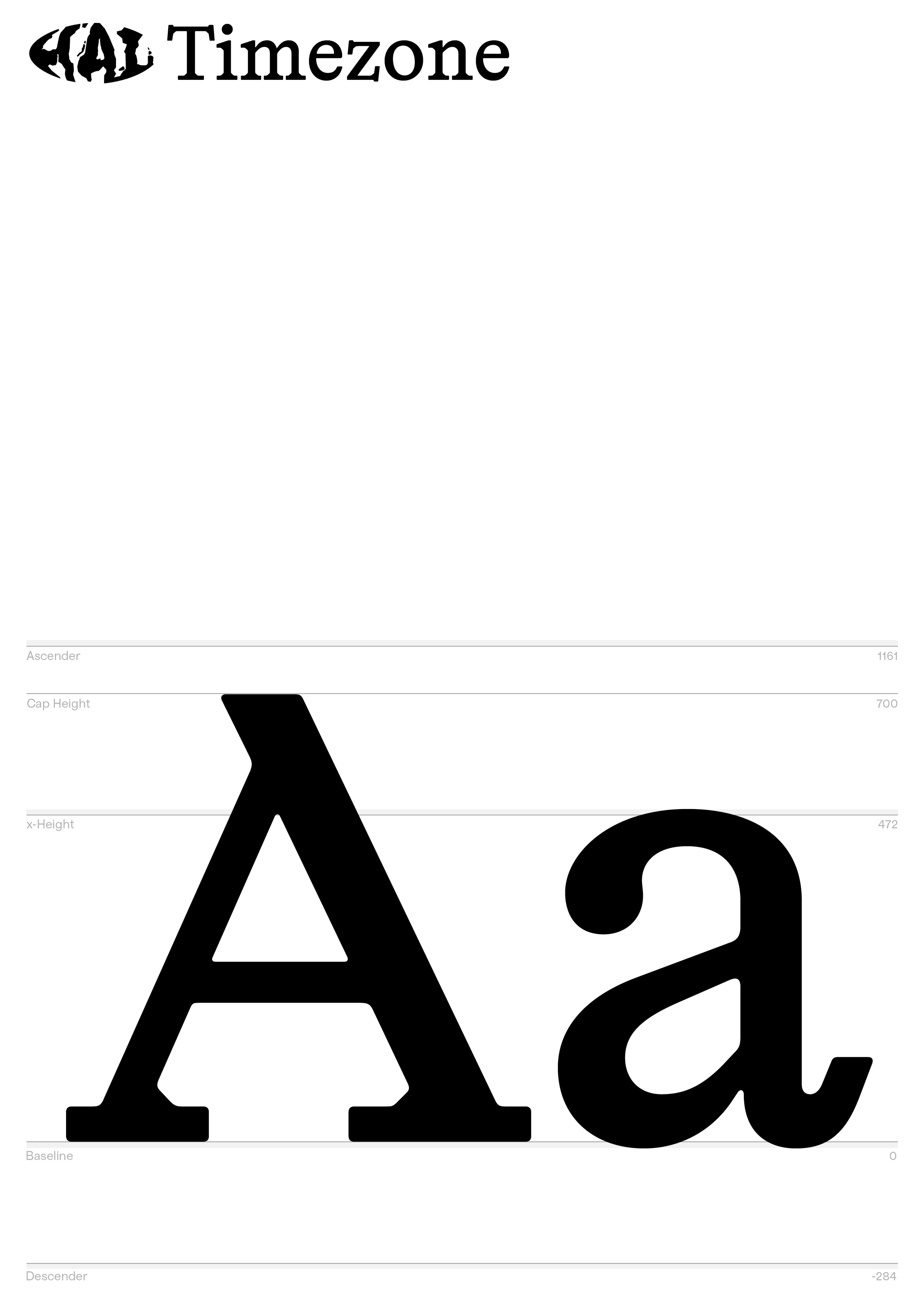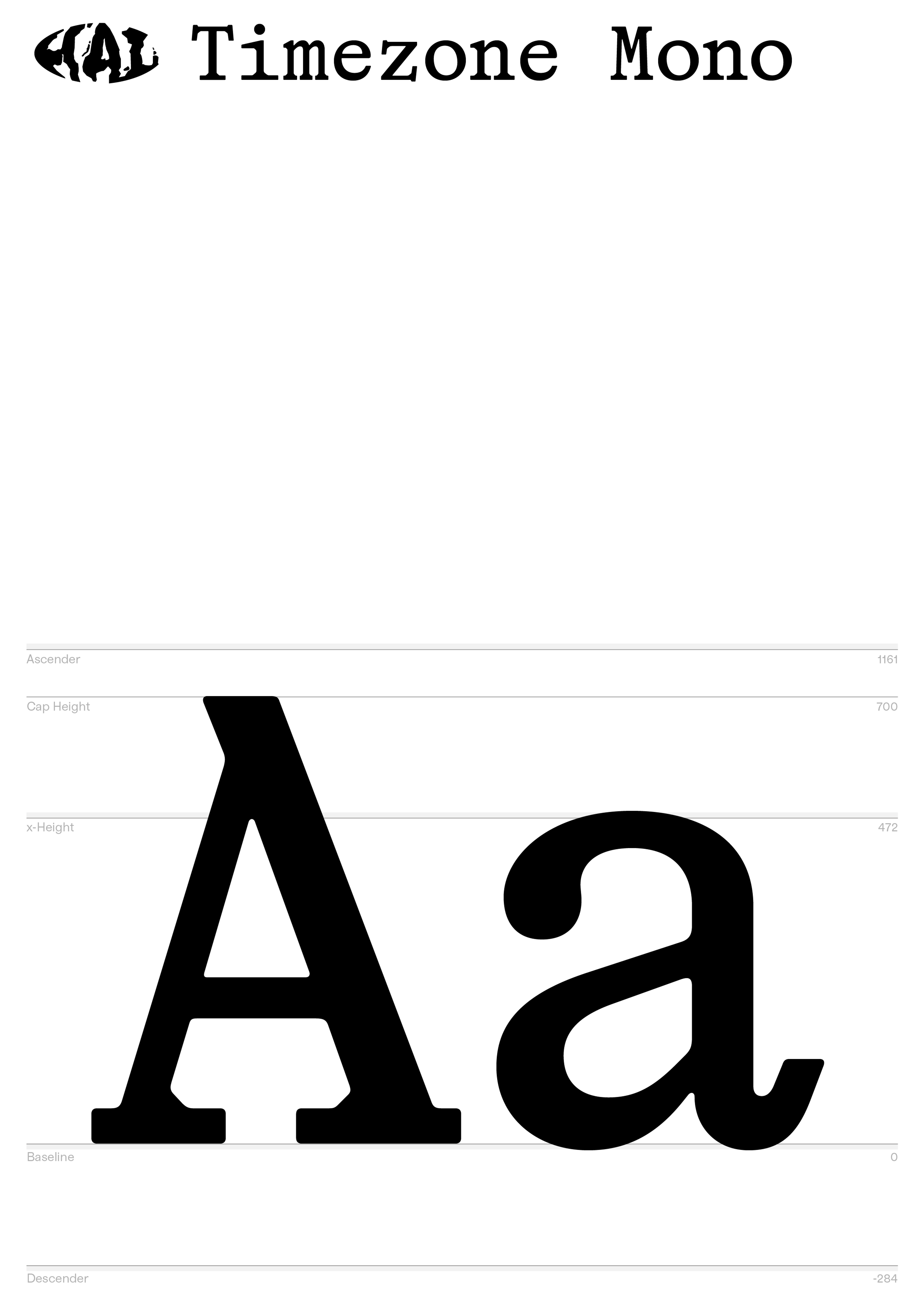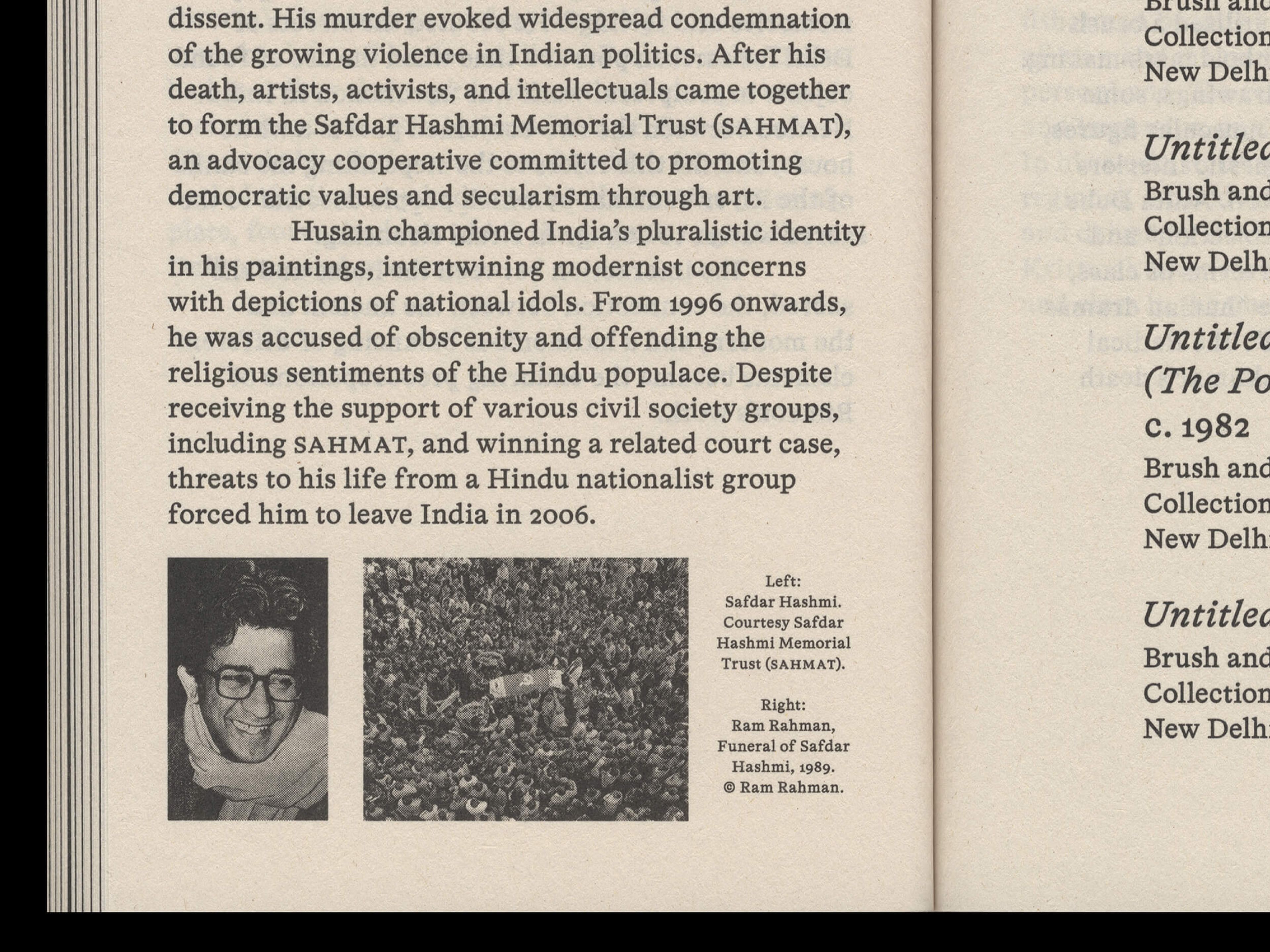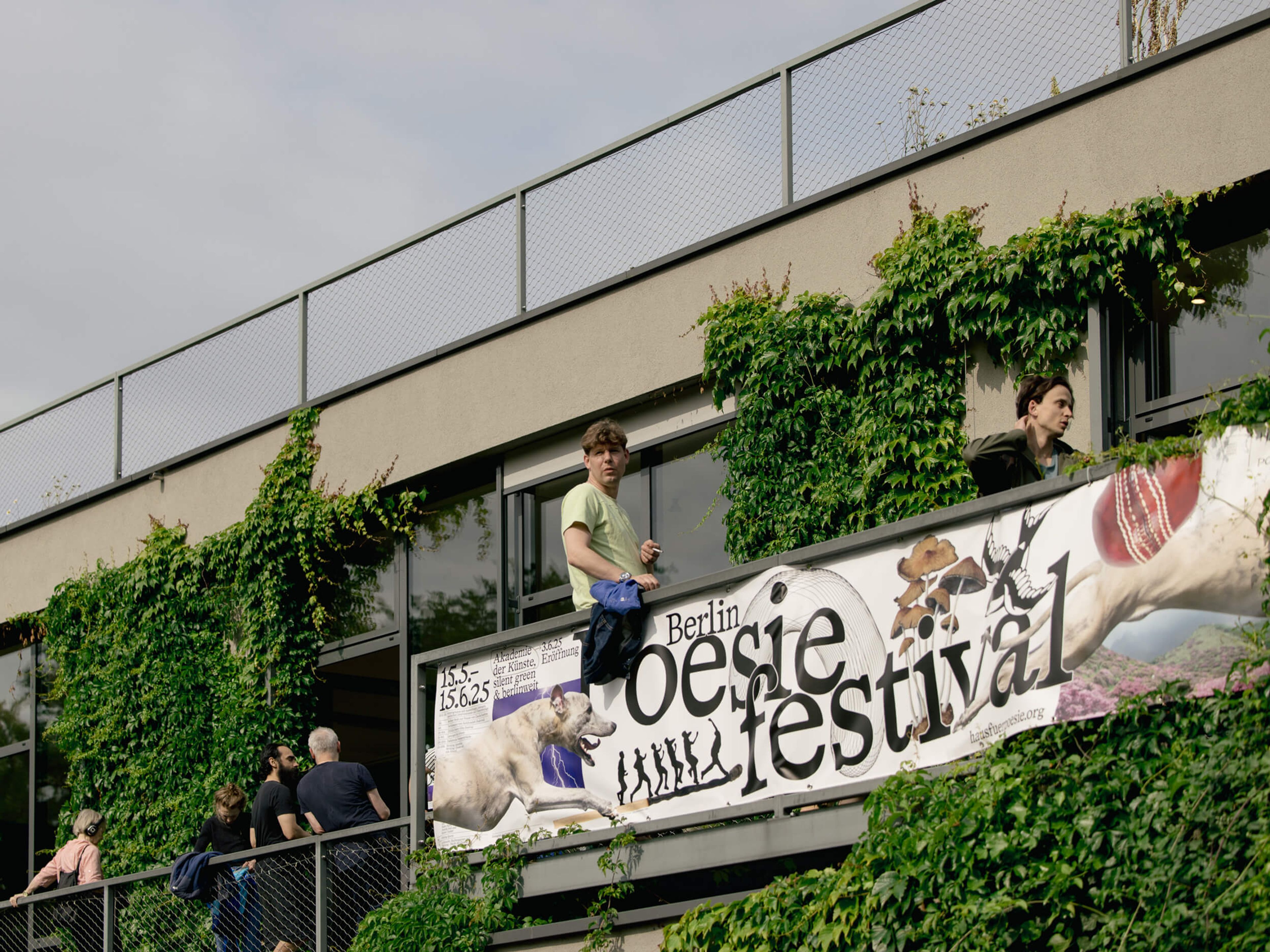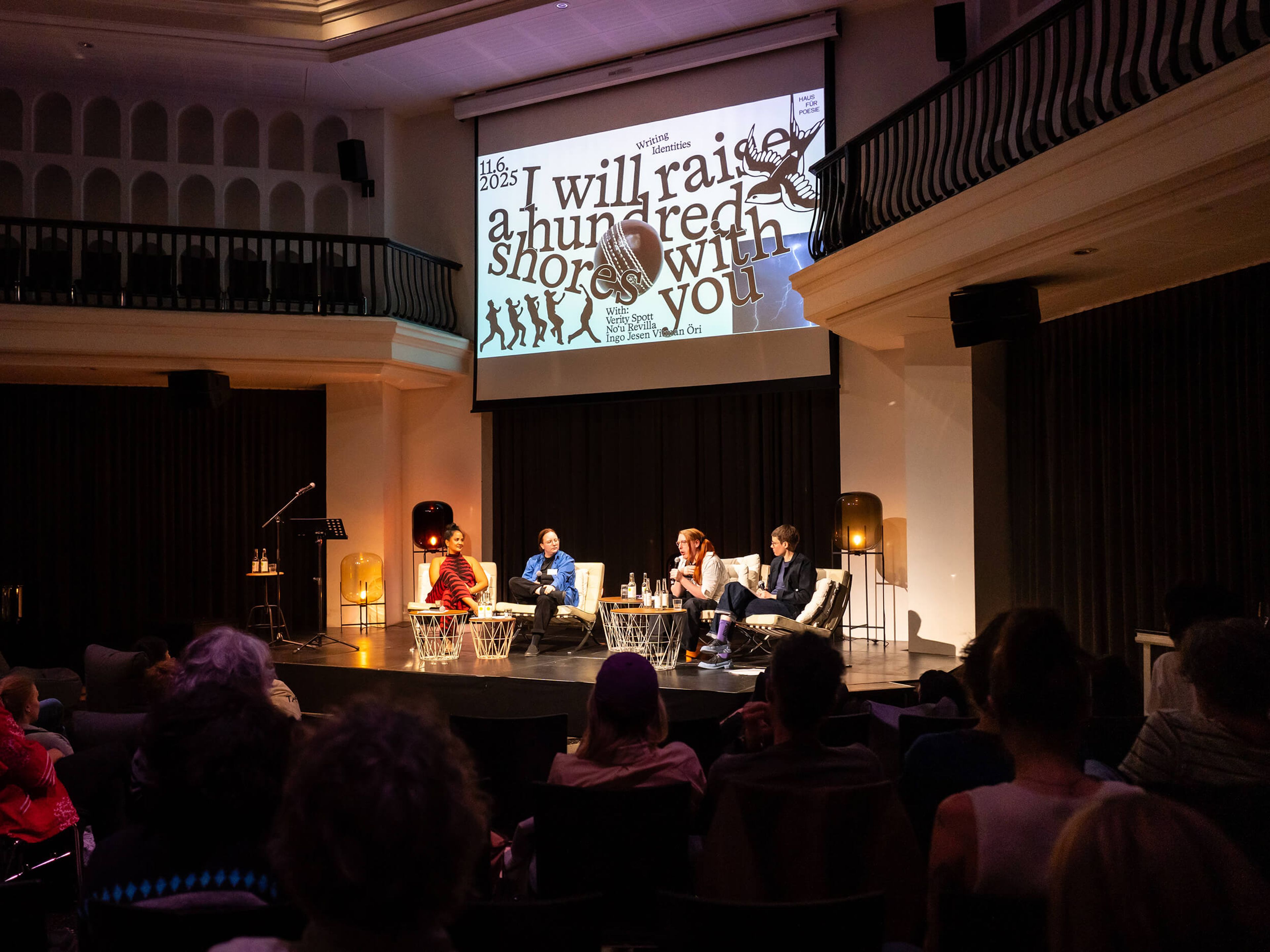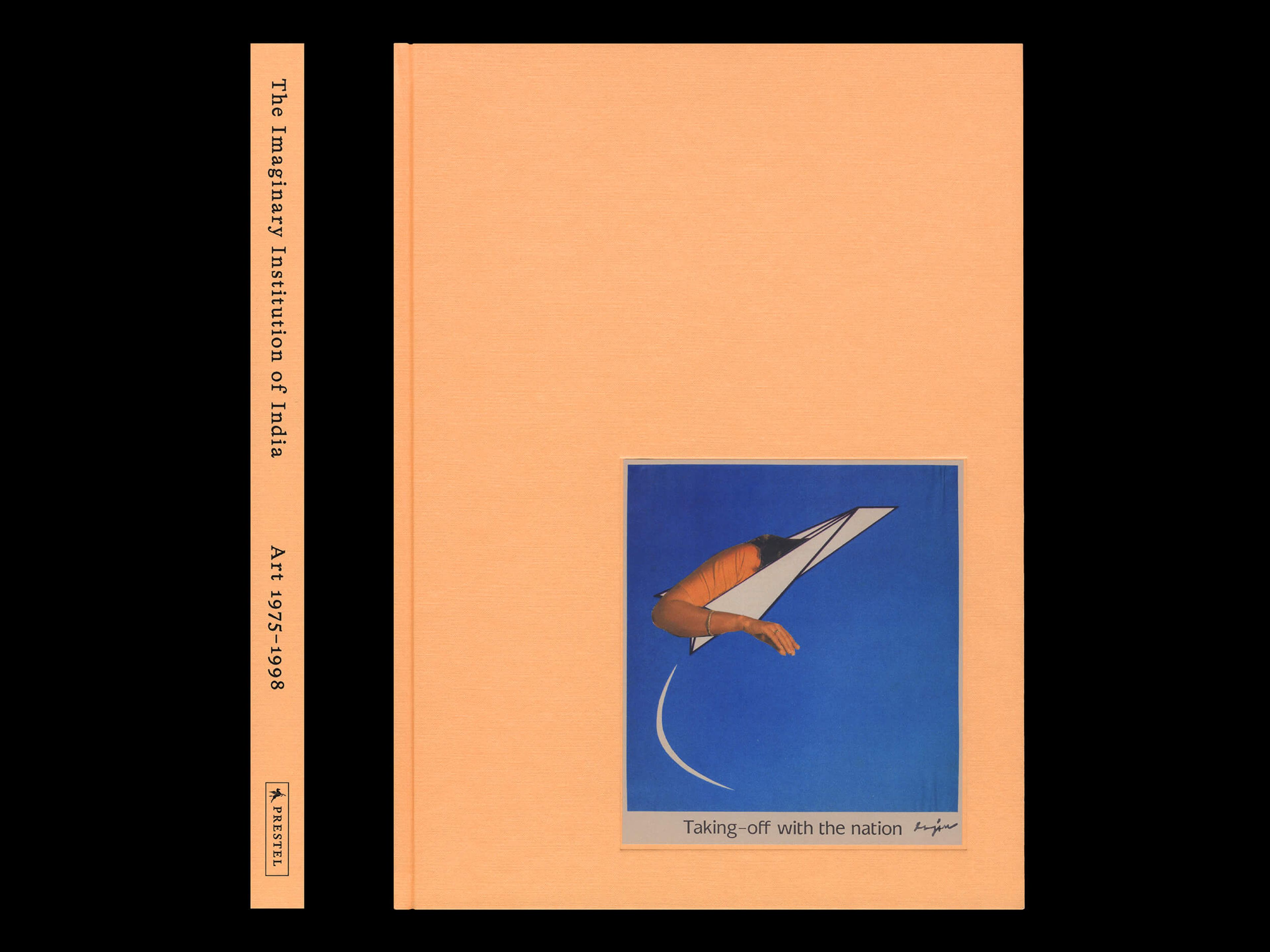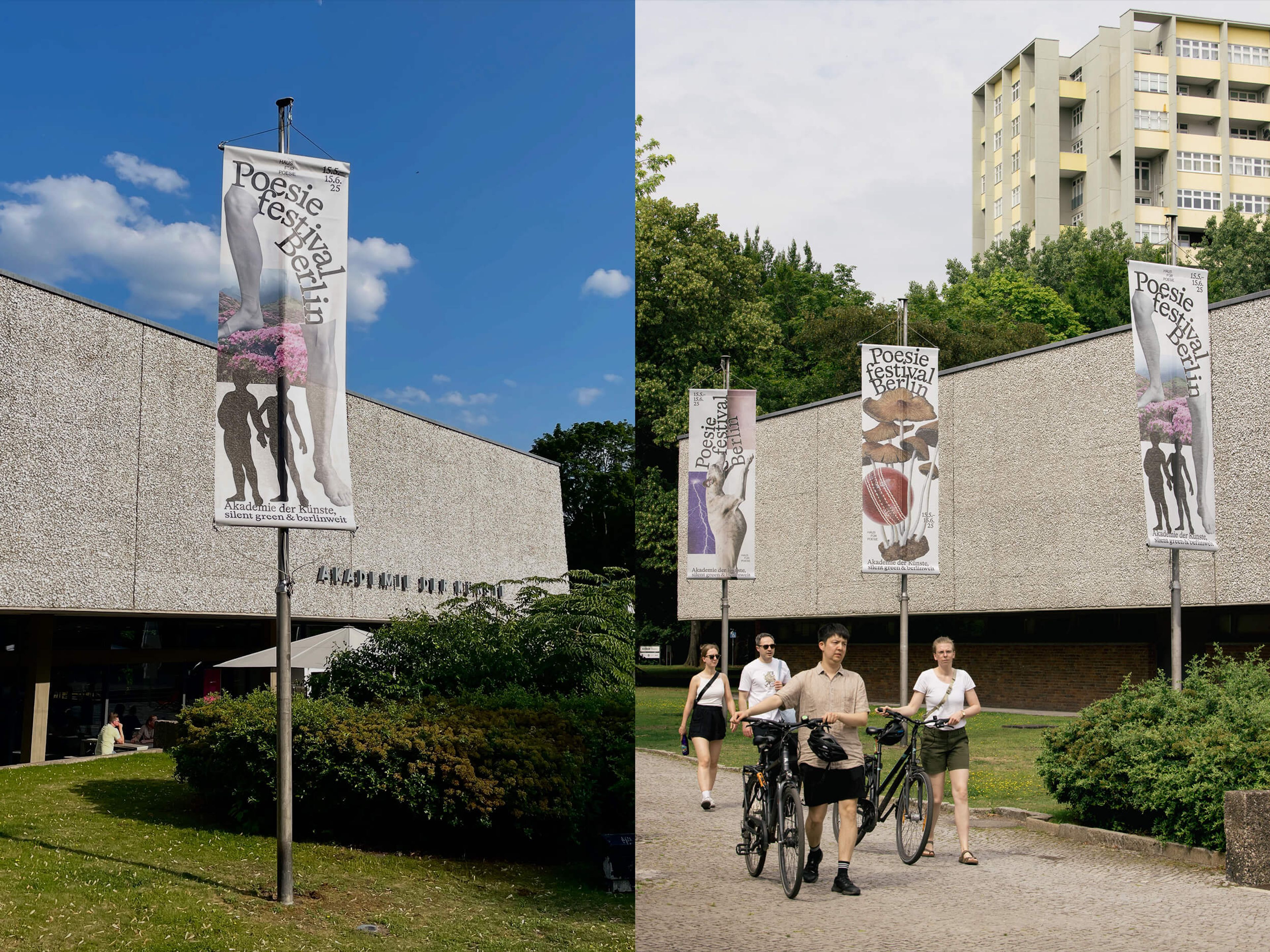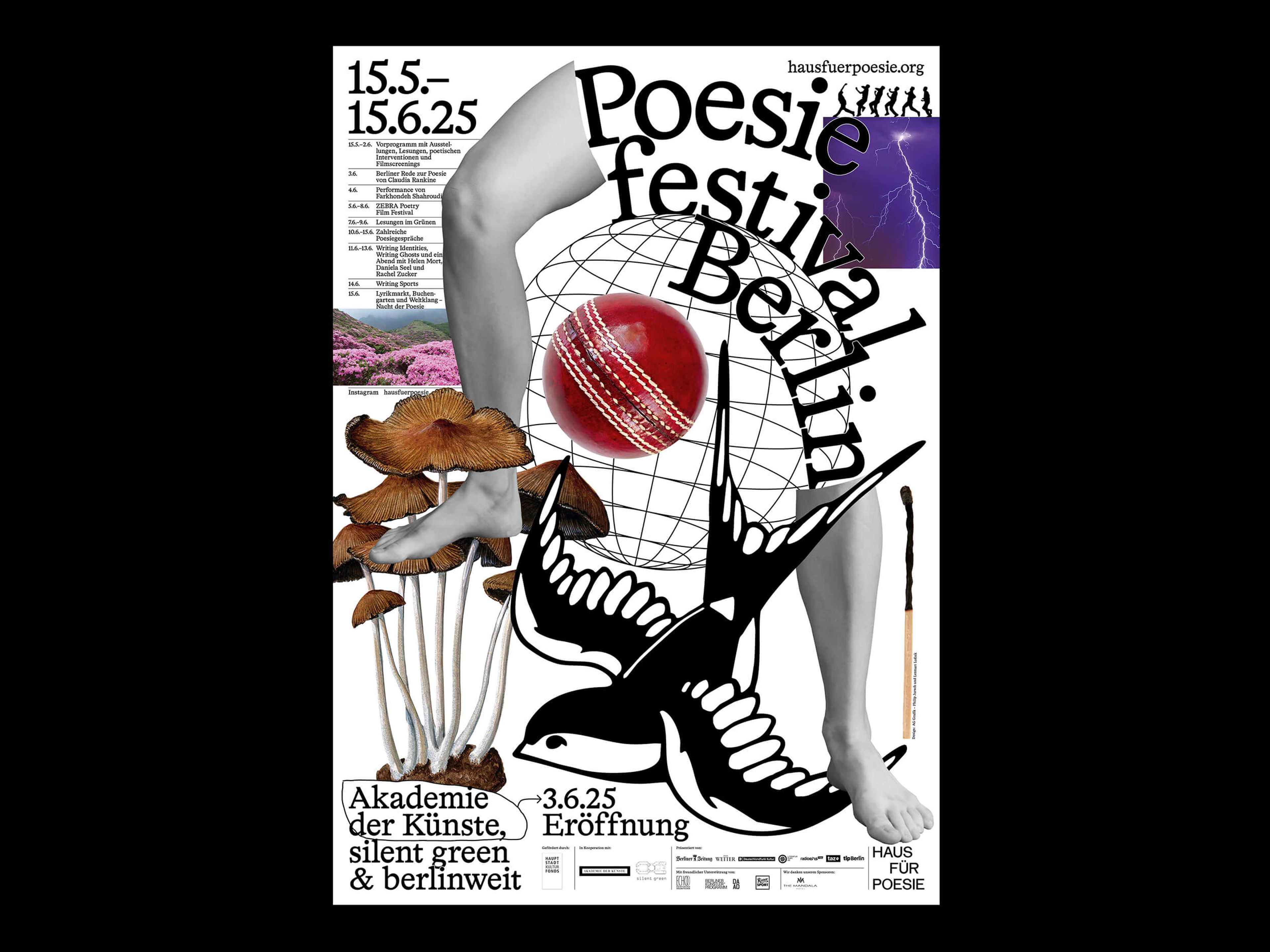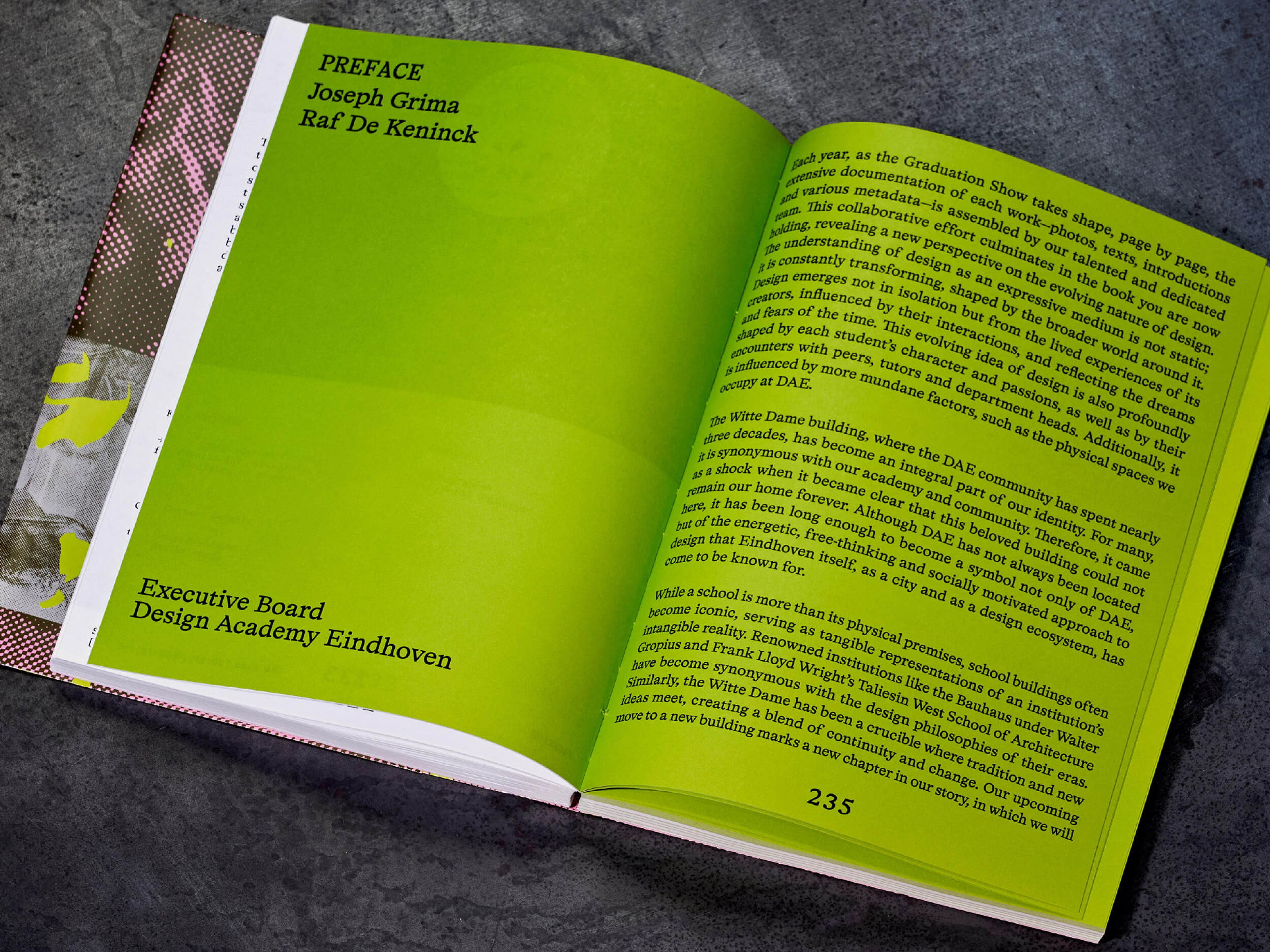
Timezone Standard
HAL Timezone is a low-contrast, serif typeface, aesthetically inspired by early digital fonts, freshly transitioned from the phototype era. A robust text font with high visibility and slightly rounded edges: the Uprights are sturdy and durable, while the Italics are more playful and dynamic, reminiscent of classical, antique serif faces. The full family spans six weights across 18 styles, including a complementary monospaced subfamily. Covering both Latin and Cyrillic scripts, Timezone also features small caps for all styles and languages, including numerals. No matter the size, task, or altitude: Timezone never sleeps.
Design: HAL Typefaces
Production: HAL Typefaces with Alex Lescieux
Spacing/Kerning: Igino Marini
Poesiefestival Berlin Design by AG Grafik, 2025
The Imaginary Institution of India. Art 1975–1998, Barbican Daly & Lyon, 2024
Design Academy Eindhoven Graduation Catalogue Design by Pedro Lobo, 2024